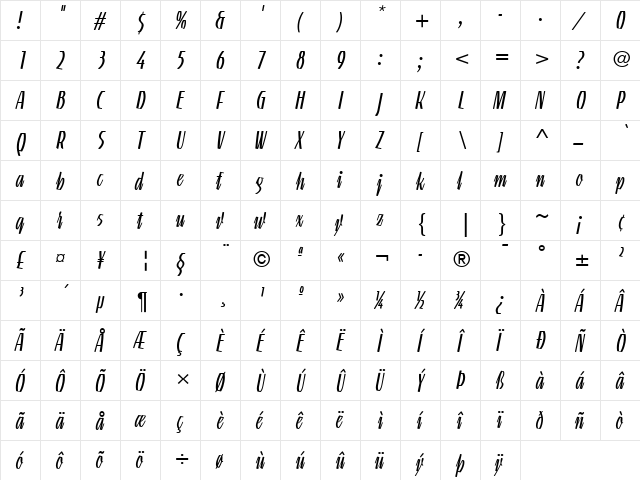
LTGneisenauette Light Regular
Design Context for LTGneisenauette Light Typeface
LTGneisenauette Light takes a measured approach to typography — its balanced proportions and neutral character make it a reliable workhorse for both digital and print work. The delicate stroke weight brings airiness and refinement to layouts.